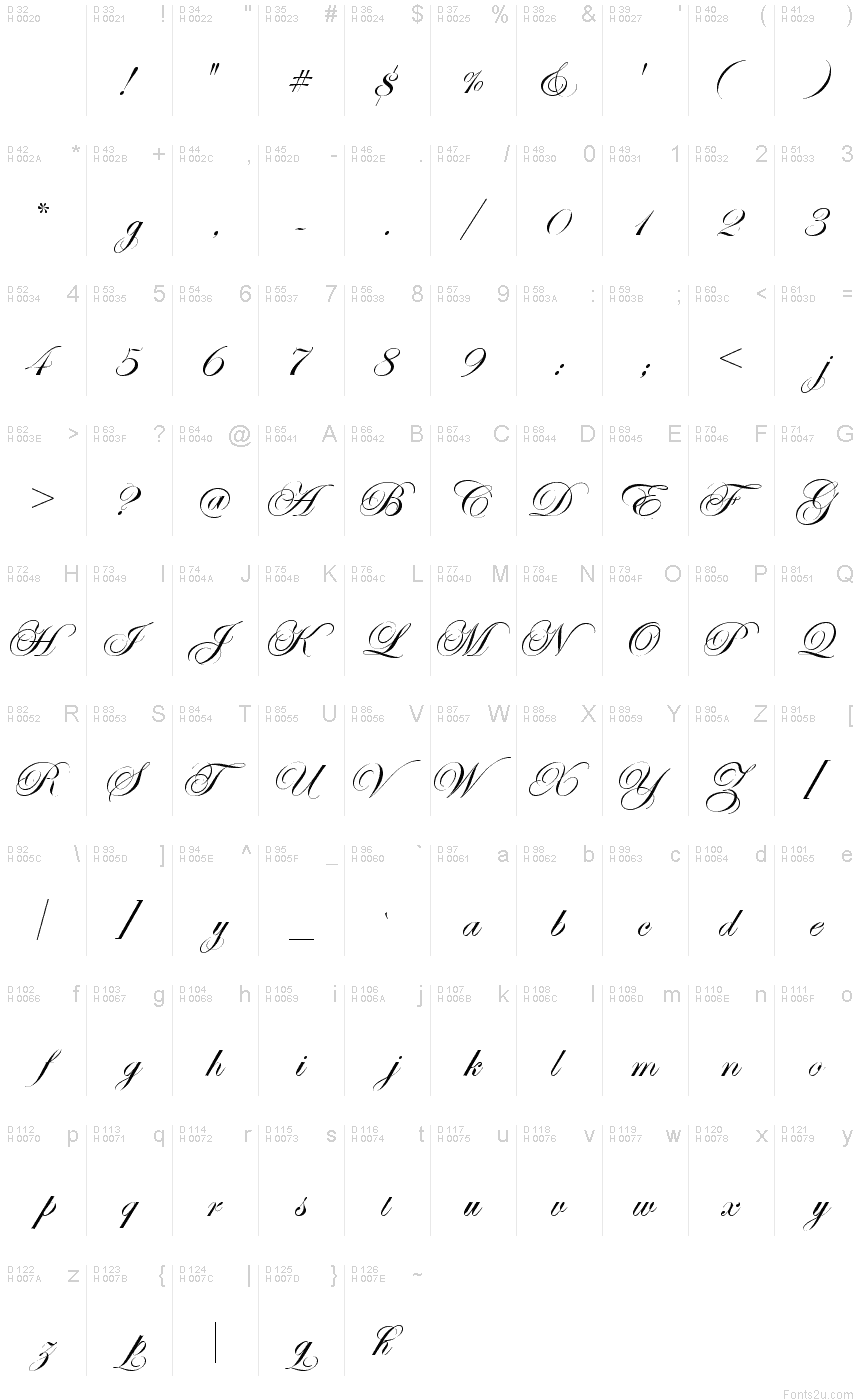
Easy Street EPS
Easy Street EPS font by EPS Fonts captures the sweeping elegance of hand-penned calligraphy, with long, inky flourishes and dramatic curves that flow from letter to letter. This is a free calligraphic script font that feels refined yet expressive, giving even a single word a sense of ceremony and movement.
Using Easy Street EPS, your titles and wordmarks gain a graceful rhythm that shines on wedding invitations, event branding, certificates, boutique logos, packaging, and greeting cards. The generous swashes and looping strokes work beautifully at larger sizes where the details can breathe, while pairing it with a clean sans serif keeps layouts balanced and readable. This free font rewards careful spacing and thoughtful composition for truly memorable designs.